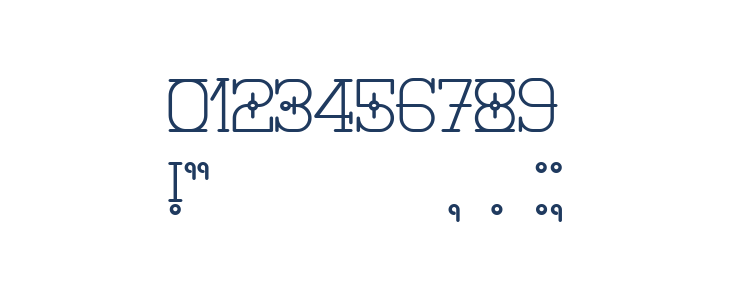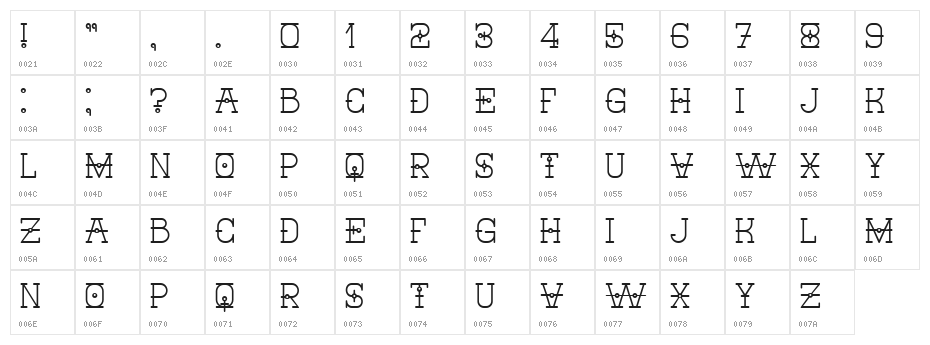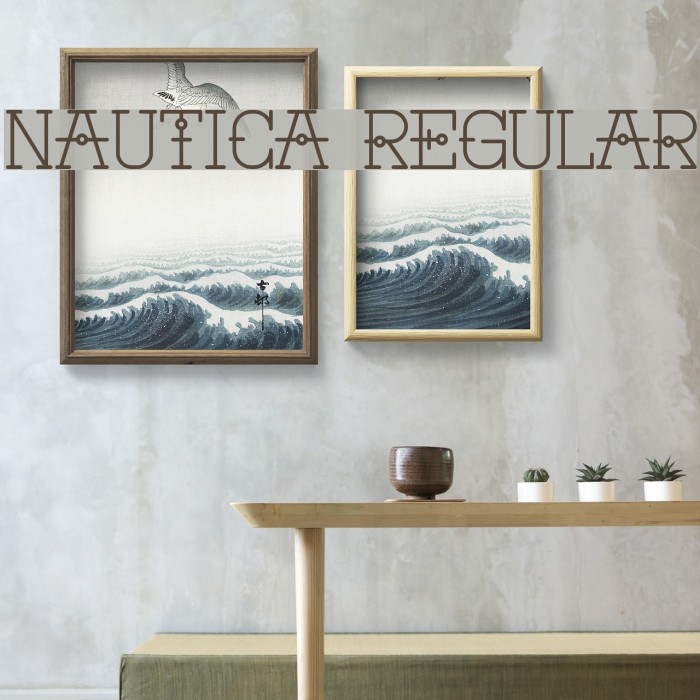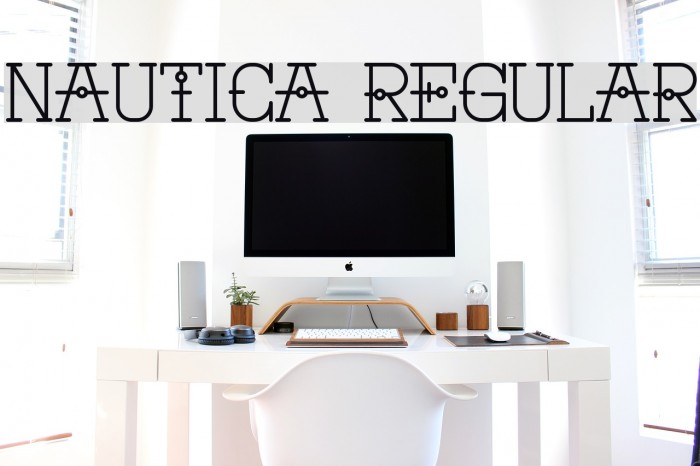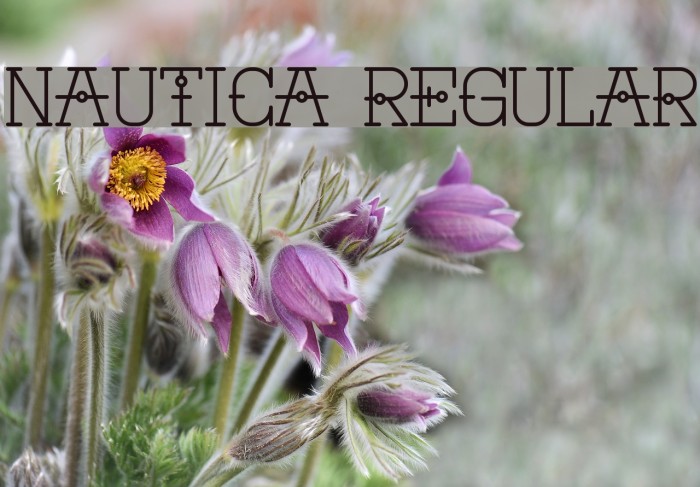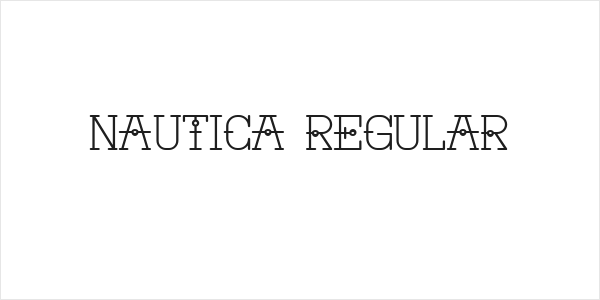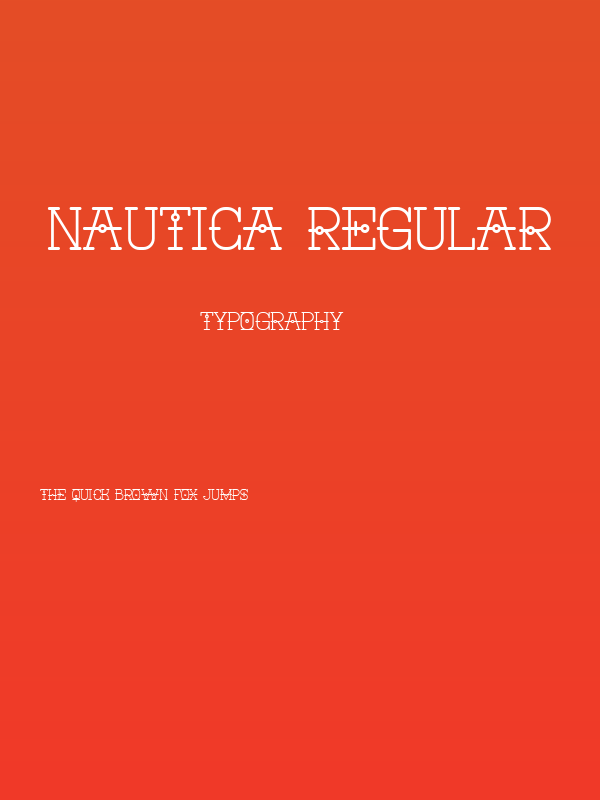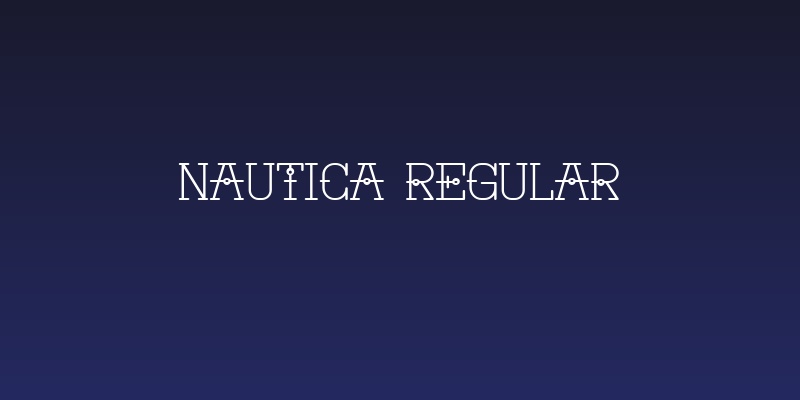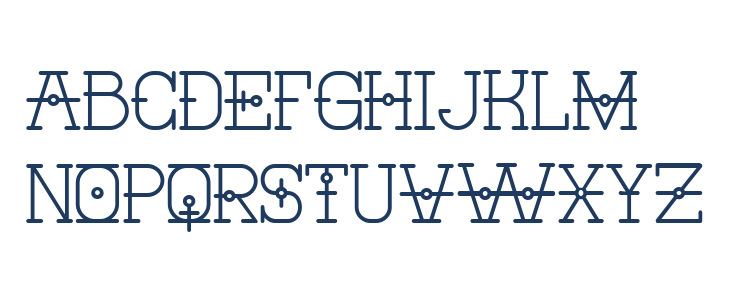
Nautica Regular Font
Nautica Regular Description
This font features a unique, decorative style with intricate circular elements incorporated into each character, creating a sense of connectivity and flow. The uppercase letters are bold and structured, with consistent line thickness and geometric precision. The lowercase letters maintain the same decorative elements, ensuring cohesion throughout the typeface. Numbers are similarly styled, with the same circular motifs, making them stand out. The special characters are designed to match the overall aesthetic, providing a harmonious look. This font's design is both artistic and functional, suitable for creative projects that require a distinctive and memorable typeface.